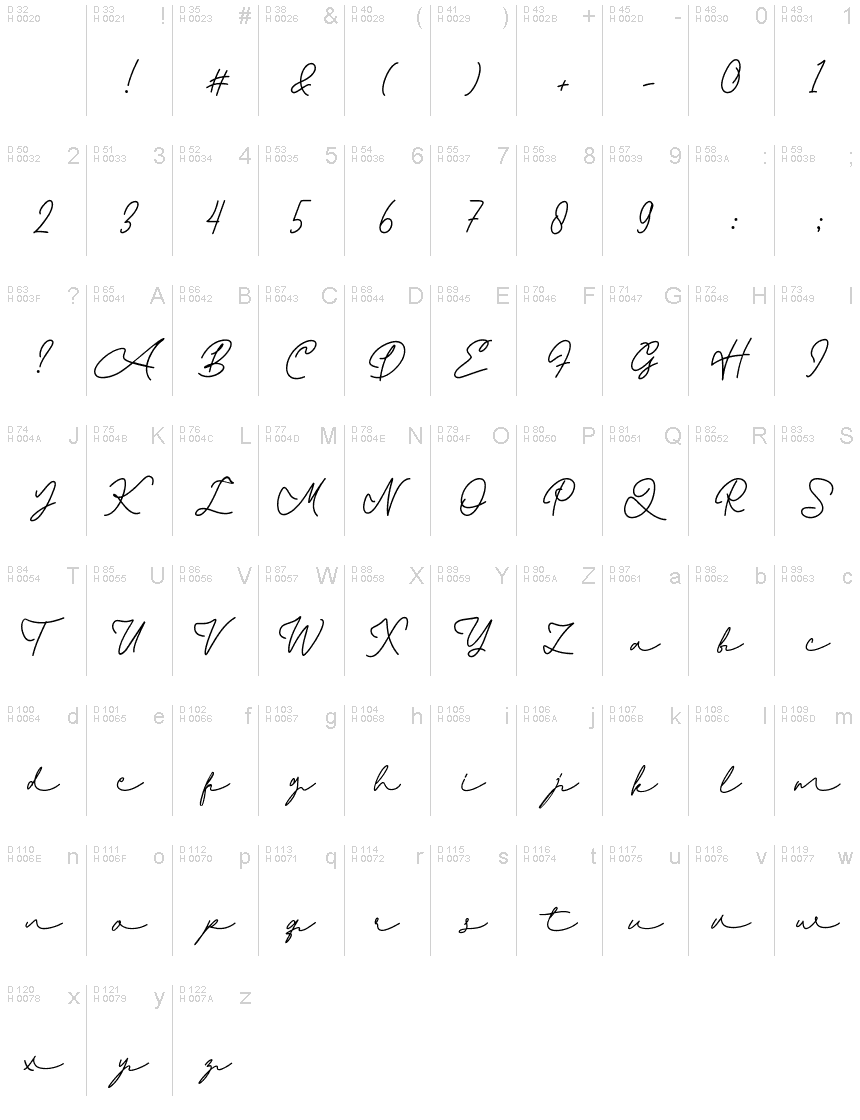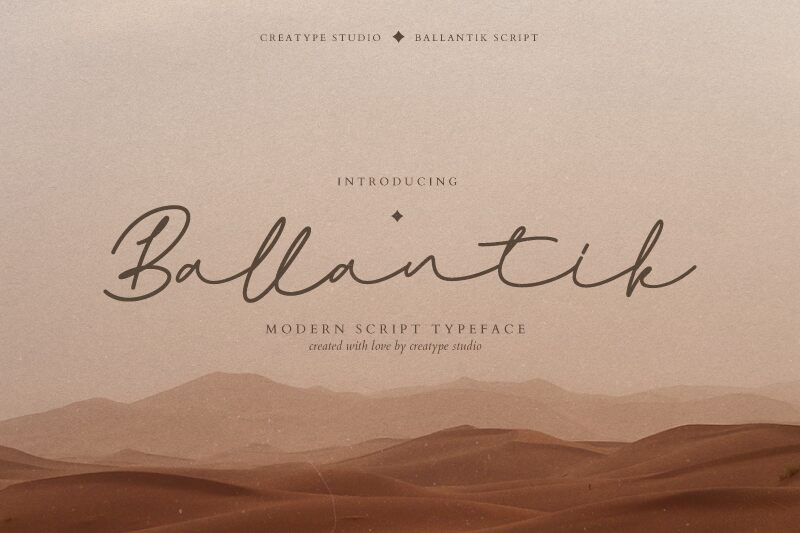
Ballantik Regular
Ballantik, the modern handwritten font designed by Creatype Studio, is the perfect choice for projects that require a touch of elegance and sophistication. Its extra-light weight and semi-expanded width make it suitable for a wide range of applications - from wedding invitations to high-end fashion magazines. Whether you're designing a logo or creating a poster, Ballantik's unique style will add a touch of personality to your project. With its flowing curves and delicate strokes, this font is sure to impress even the most discerning clients. So why settle for ordinary when you can have Ballantik?